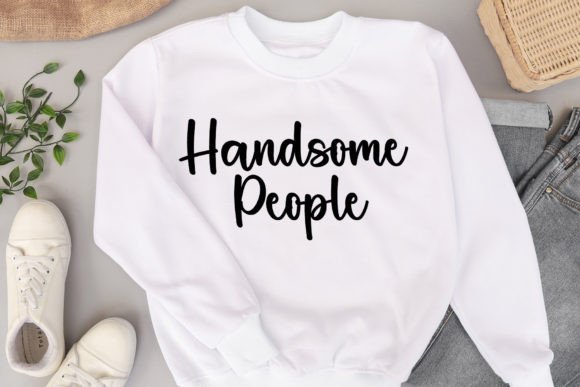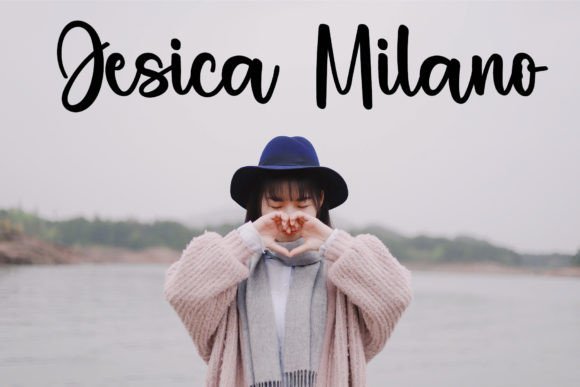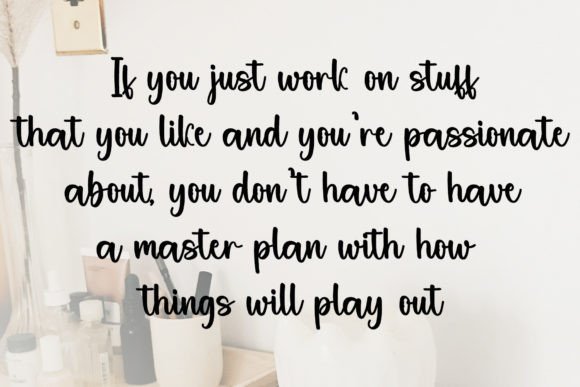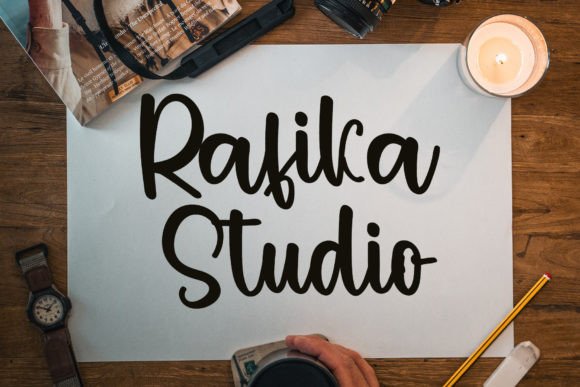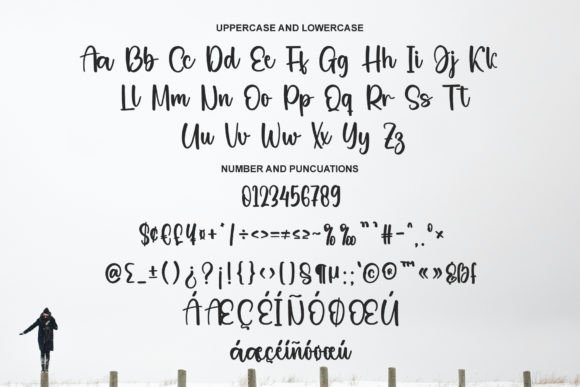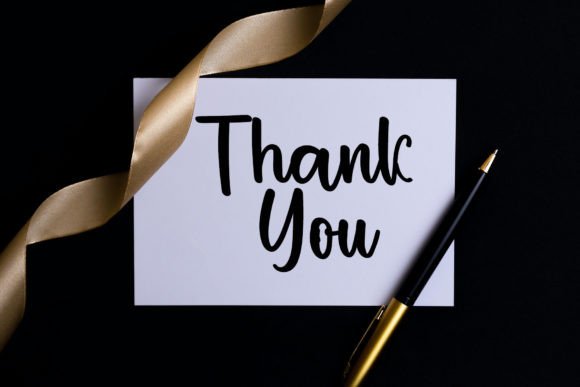
Introducing Booking Font: The Perfect Handwritten Font for Your Creative Projects
Are you a designer, crafter, or DIY enthusiast looking for a unique and versatile font to elevate your creative projects? Look no further than Booking Font, a beautifully crafted, round lettered handwritten font that’s perfect for a wide range of applications. In this article, we’ll take a closer look at Booking Font, its features, and how you can use it to add a personal touch to your titles, invitations, letters, and more.
What is Booking Font?
Booking Font is a carefully crafted, handwritten font that’s designed to produce high-quality results. Its unique, round lettered design makes it stand out from other fonts, giving your text a friendly, approachable feel that’s perfect for a variety of projects. Whether you’re creating titles, invitations, letters, or other types of products, Booking Font is the perfect choice.
Key Features of Booking Font
So, what makes Booking Font so special? Here are just a few of its key features:
- Unique, round lettered design: Booking Font’s distinctive design makes it perfect for adding a personal touch to your projects.
- Handwritten feel: The font’s handwritten feel gives your text a friendly, approachable tone that’s perfect for a wide range of applications.
- High-quality results: Booking Font is carefully crafted to produce high-quality results, making it perfect for professional designers and crafters.
- Versatile: Booking Font can be used for a wide range of projects, from titles and invitations to letters and more.
How to Use Booking Font
Booking Font is incredibly easy to use, making it perfect for designers and crafters of all skill levels. Here are just a few ways you can use Booking Font in your projects:
- Titles and headings: Use Booking Font to create eye-catching titles and headings that add a personal touch to your projects.
- Invitations and announcements: Booking Font is perfect for creating invitations, announcements, and other types of formal correspondence.
- Letters and correspondence: Add a personal touch to your letters and correspondence with Booking Font.
- DIY projects: Booking Font is perfect for a wide range of DIY projects, from crafting and scrapbooking to card making and more.
Why Choose Booking Font?
So, why should you choose Booking Font for your projects? Here are just a few reasons:
- Unique design: Booking Font’s unique design makes it stand out from other fonts, giving your text a distinctive look that’s sure to grab attention.
- Easy to use: Booking Font is incredibly easy to use, making it perfect for designers and crafters of all skill levels.
- High-quality results: Booking Font is carefully crafted to produce high-quality results, making it perfect for professional designers and crafters.
- Versatile: Booking Font can be used for a wide range of projects, making it a great addition to your font library.
| Font Name | Booking Font |
| Author | Bintang Studio |
In conclusion, Booking Font is a unique and versatile handwritten font that’s perfect for a wide range of creative projects. Its distinctive, round lettered design and handwritten feel make it stand out from other fonts, giving your text a friendly, approachable tone that’s perfect for titles, invitations, letters, and more. Whether you’re a designer, crafter, or DIY enthusiast, Booking Font is a great choice for adding a personal touch to your projects.